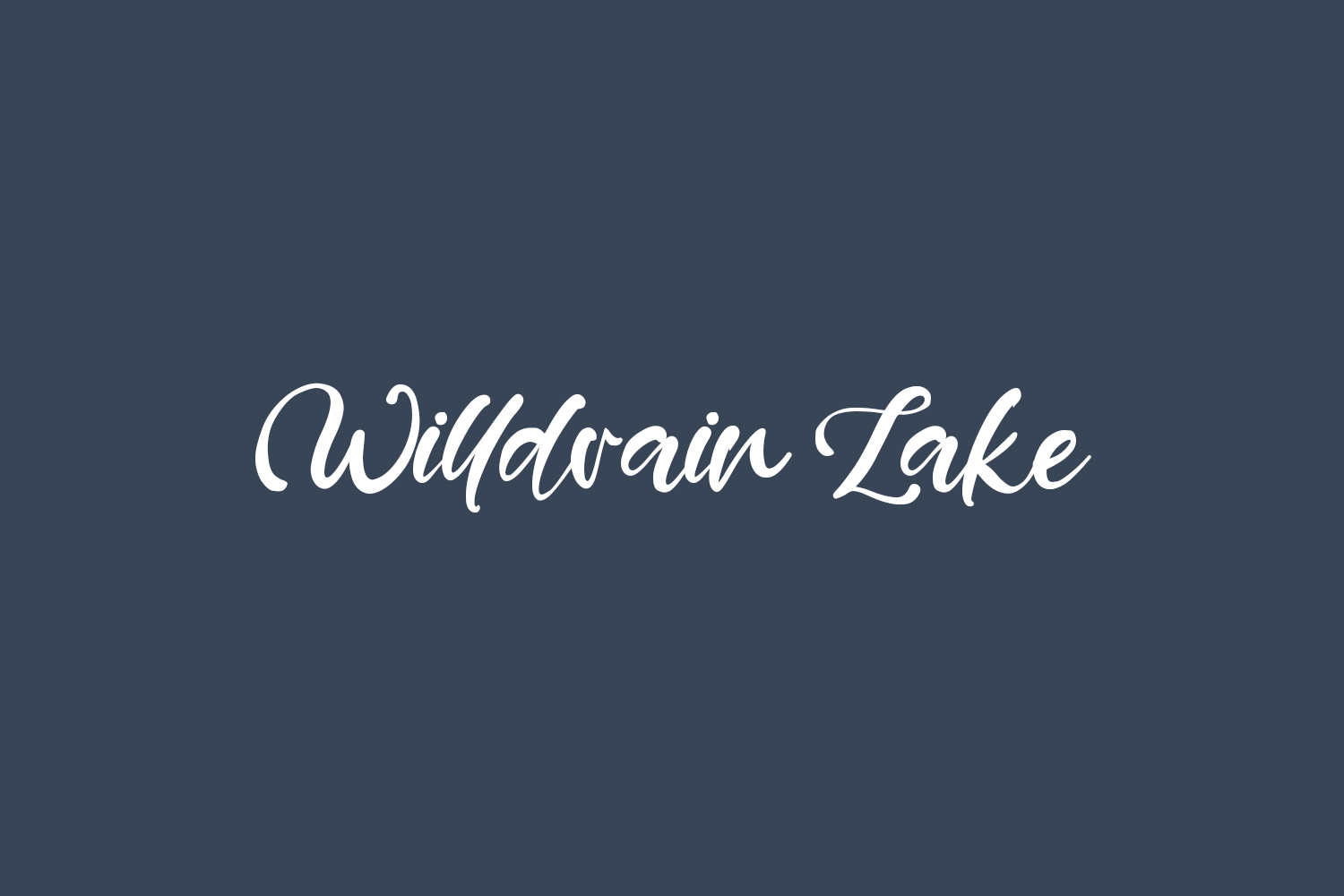
Willdrain Lake Free Font is a modern script font. A collection of letters and numbers suitable for your projects is also great for logotypes, branding materials, logos, digital lettering arts, t-shirts/apparel, posters, magazines, signs, advertising designs, and more. Willdrain Lake Free Font was designed by Staircase Studio and is free for personal use only. Please purchase the full version for commercial use.
Designed by Staircase Studio